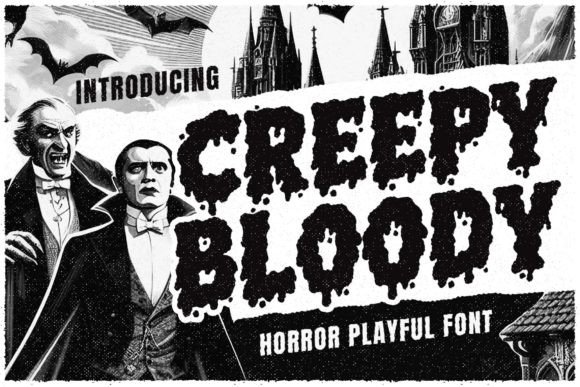
Introducing Creepy Bloody: A Playful Horror Font by Blankids Studio
Key Features of Creepy Bloody Font
- Playful Horror Style: Creepy Bloody font has a playful and horror-style design, making it perfect for projects that require a spooky yet fun touch.
- Two Font Styles: This font comes in two font styles: regular and slant, giving you flexibility and options for your designs.
- Full Set of Characters: Creepy Bloody font includes a full set of horror uppercase and lowercase letters, numerals, and punctuation, making it a comprehensive font for all your design needs.
Ideas for Using Creepy Bloody Font
Creepy Bloody font is versatile and can be used for various design projects, including:
- Logotypes and Branding: Create a unique and memorable logo for your business or product with Creepy Bloody font.
- Posters and Flyers: Design eye-catching posters and flyers for horror-themed events, parties, or promotions.
- Product Packaging: Add a playful horror touch to your product packaging with Creepy Bloody font.
- Social Media Graphics: Create engaging social media graphics, such as Facebook posts, Instagram stories, and Twitter headers, using Creepy Bloody font.
Preview of Creepy Bloody Font
See the previews above to get some inspiration on how to use Creepy Bloody font in your designs. The font has a unique and playful horror style that is sure to grab attention.
Tips and Tricks for Using Creepy Bloody Font
In conclusion, Creepy Bloody font is a unique and playful horror font that is perfect for designers looking to add a spooky yet fun touch to their projects. With its two font styles, full set of characters, and versatility, Creepy Bloody font is a great addition to any designer’s font library.